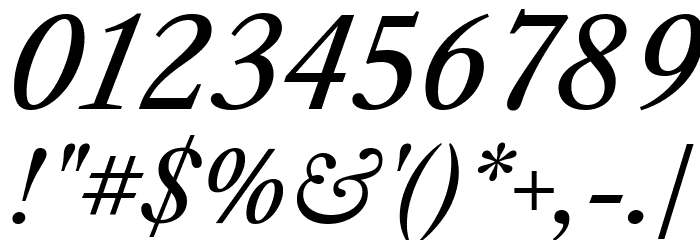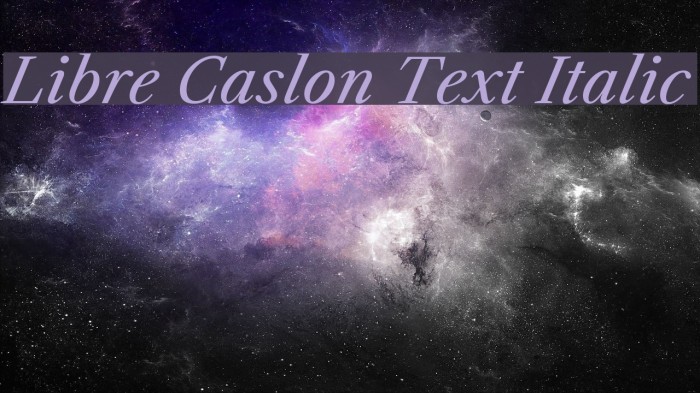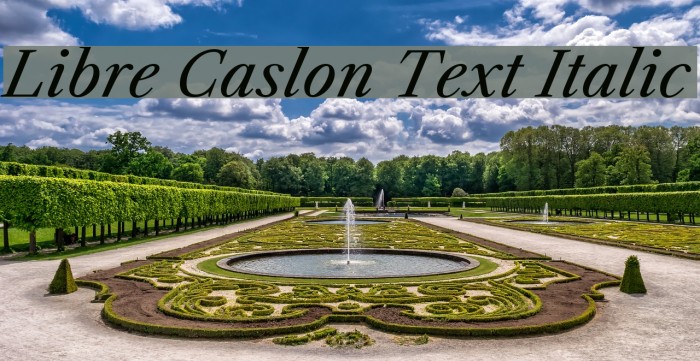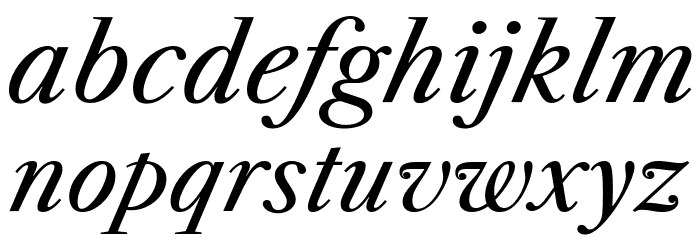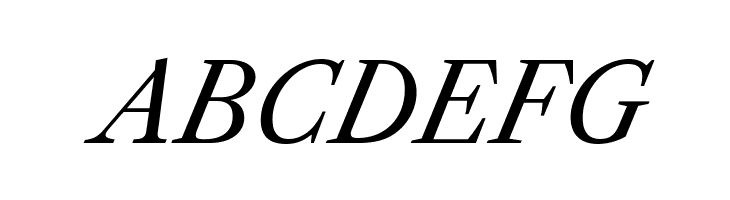
Libre Caslon Text Italic Font
Libre Caslon Text Italic Description
This font exudes a classic elegance with its italicized form, featuring smooth, flowing lines and a refined serif structure. The characters are well-proportioned, with a slight slant that adds a touch of sophistication and movement. The uppercase letters stand tall and dignified, while the lowercase letters maintain a graceful continuity. Numbers are clear and distinct, ensuring readability. Special characters are thoughtfully designed, complementing the overall aesthetic. The font's contrast in stroke thickness is moderate, providing a balanced appearance that is neither too bold nor too light.
An elegant italic serif font with smooth, flowing lines and moderate contrast from Uncategorized fonts.
- Proposed Projects: Ideal for projects that require a touch of sophistication, such as wedding invitations, formal event programs, or elegant branding materials.
- Overall Style: Classic